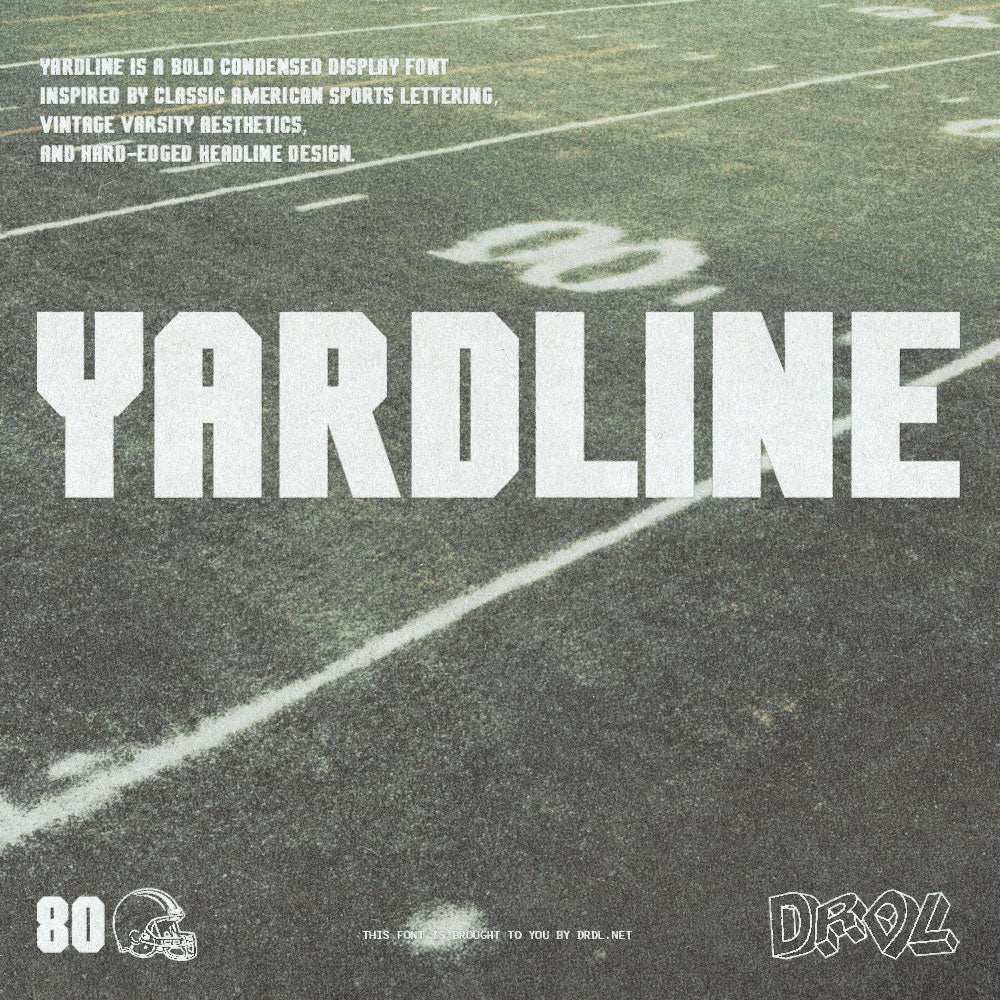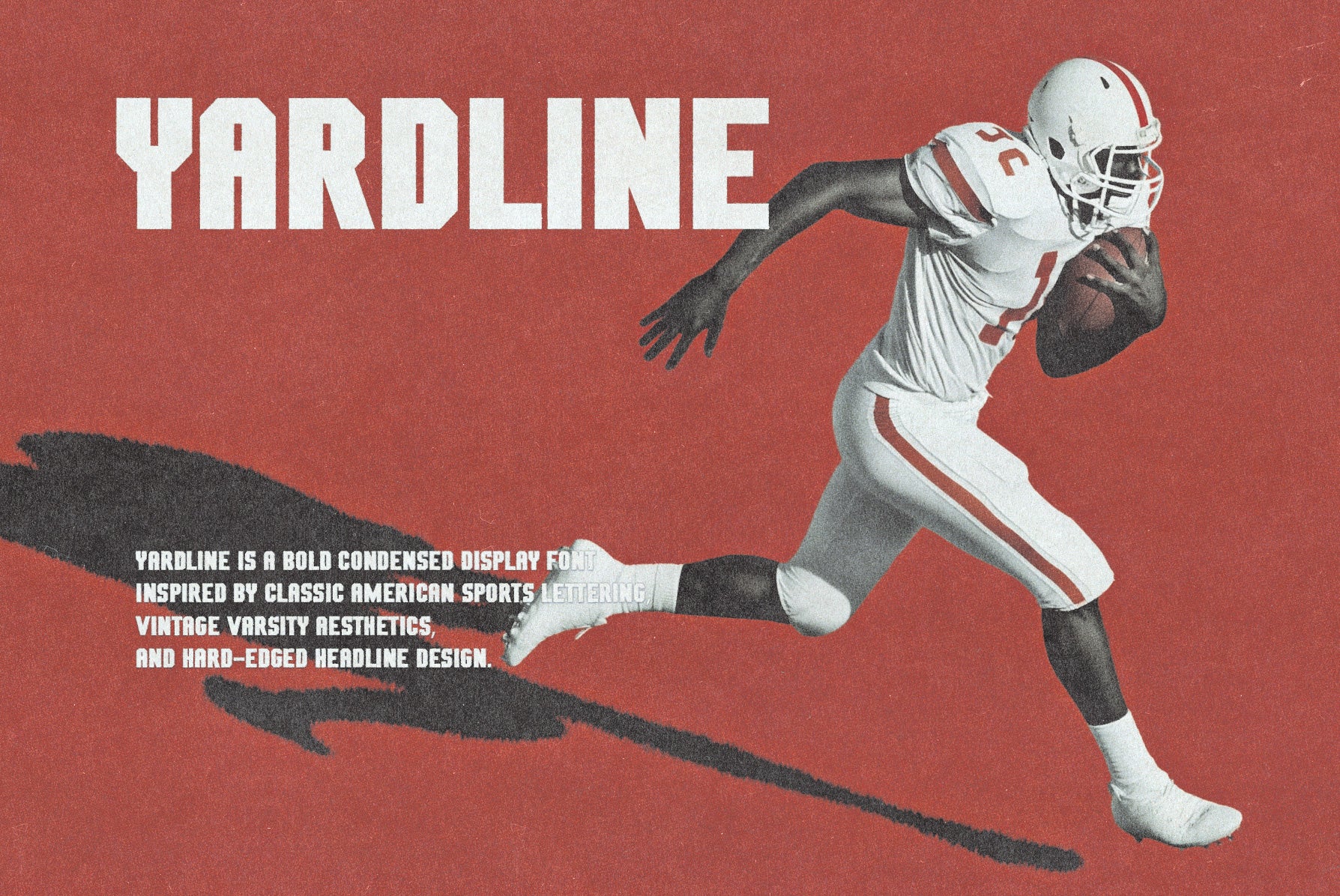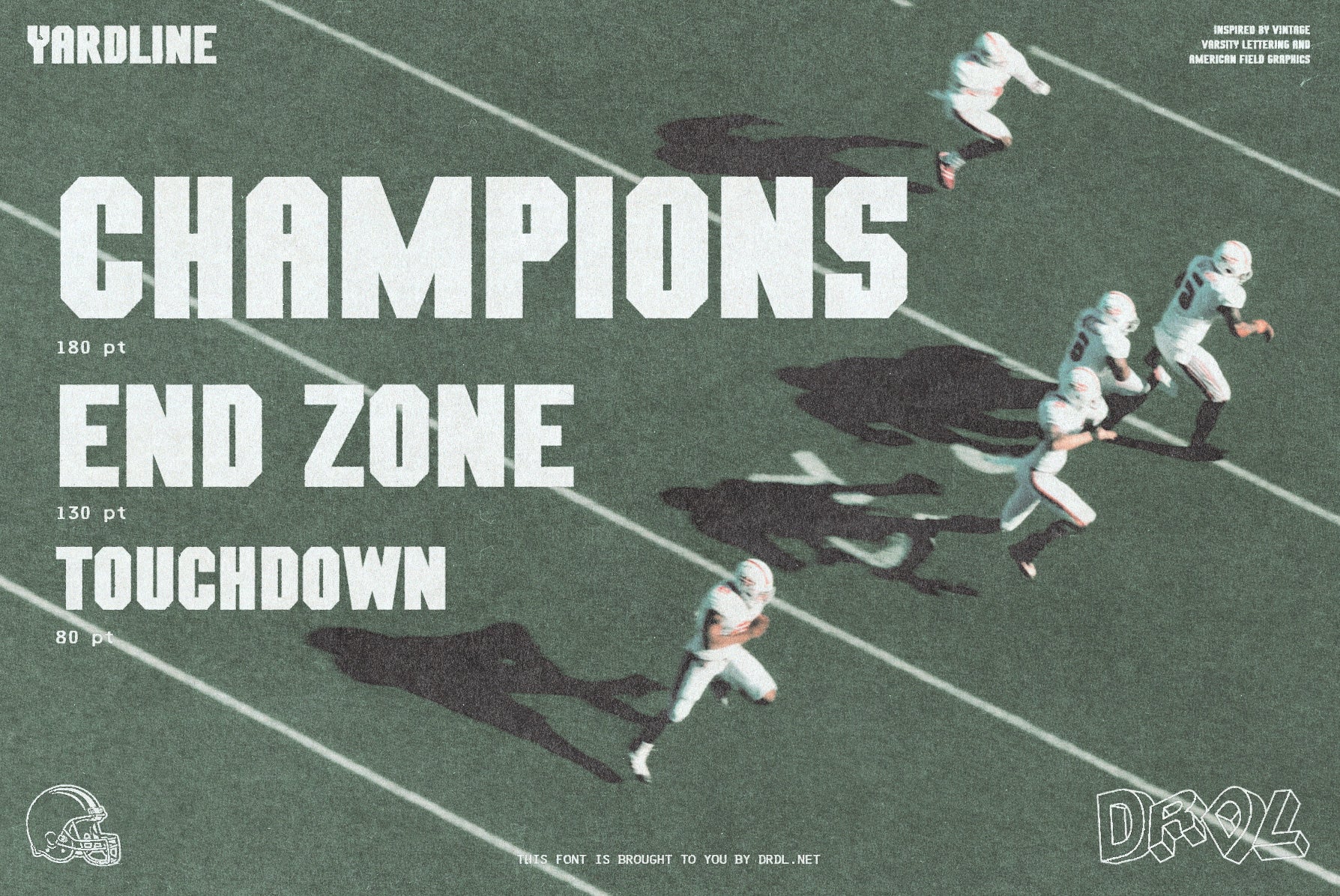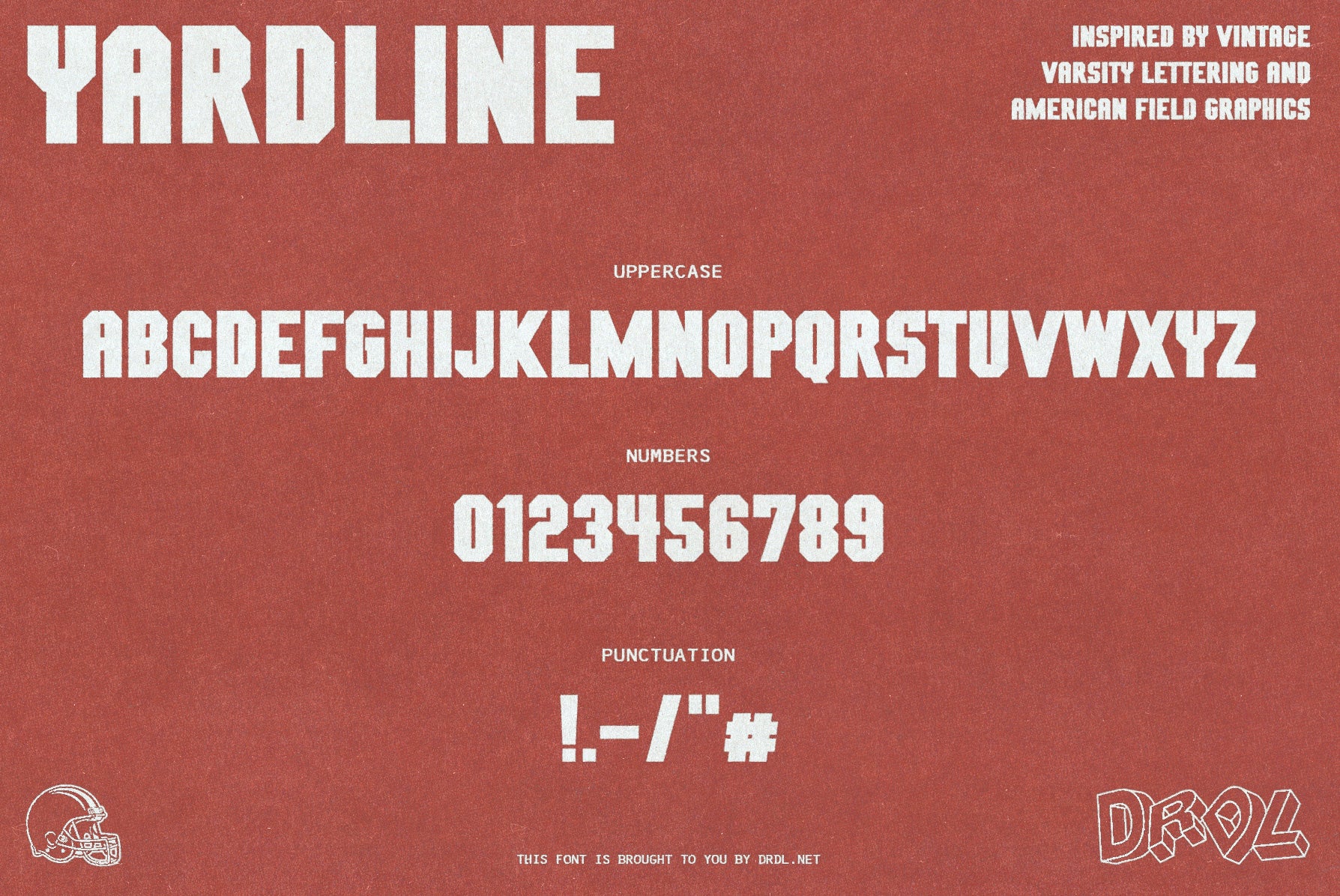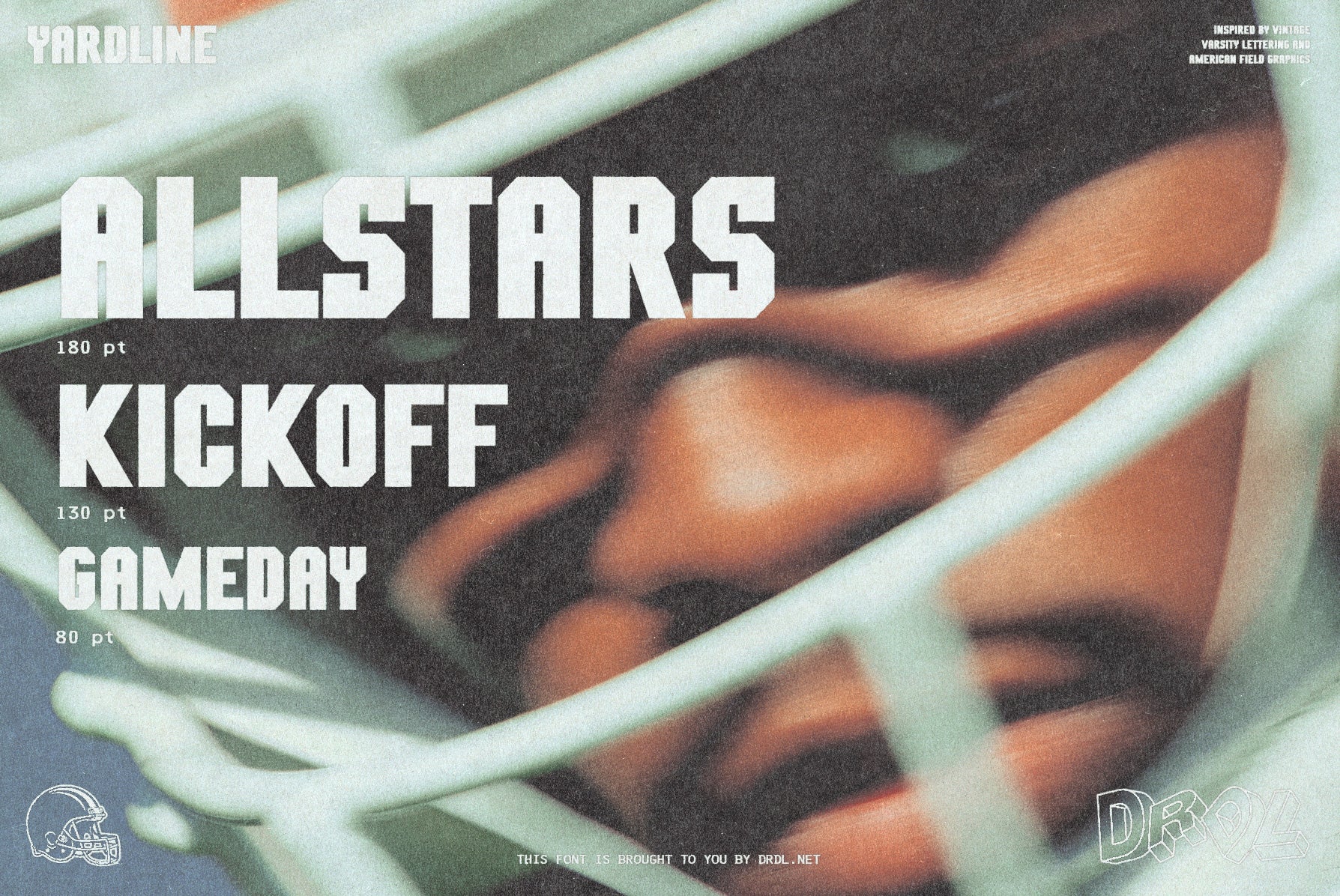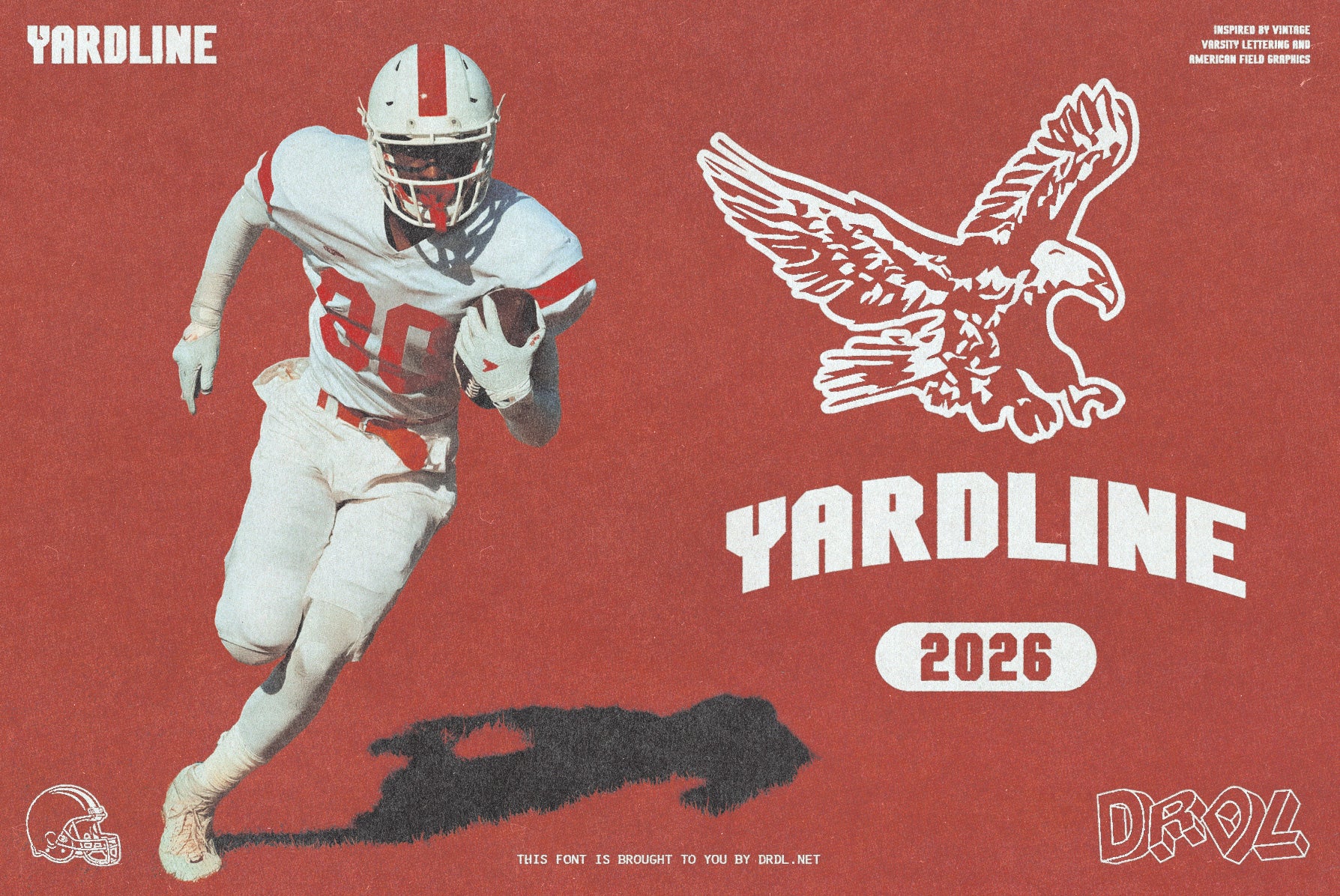
YARDLINE – Condensed Athletic Display Font
YARDLINE is a bold condensed display font inspired by classic American sports lettering, vintage varsity graphics, and hard-edged headline design.
Built for strong visual impact, YARDLINE combines narrow proportions, sharp cuts, and a compact rhythm that makes every word feel disciplined, athletic, and confident. It carries the energy of heritage sports typography, but with a cleaner and more contemporary structure that keeps it fresh for modern design work.
This font is ideal for posters, branding, apparel graphics, packaging, logos, editorial headlines, team-inspired visuals, and bold social media layouts.
Perfect for:
• sports-inspired branding
• varsity and athletic graphics
• apparel design
• posters and flyers
• logos and packaging
• strong headline layouts
YARDLINE is a bold condensed display font inspired by classic American sports lettering and vintage varsity graphics. Featuring narrow proportions and sharp cuts, it offers a strong visual impact suitable for various design applications.